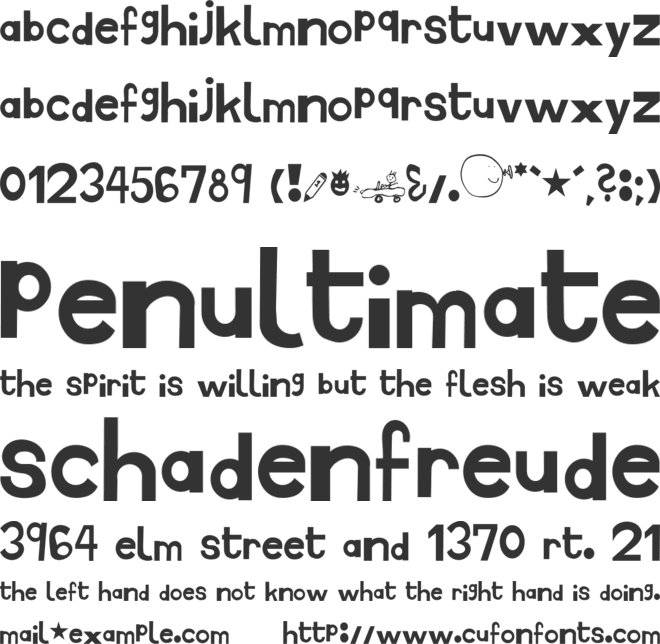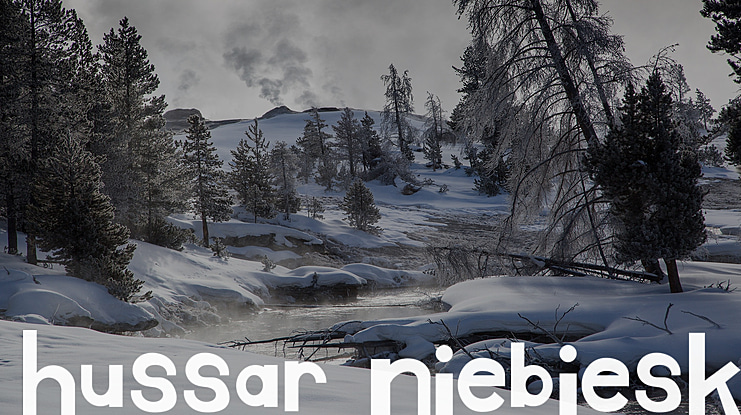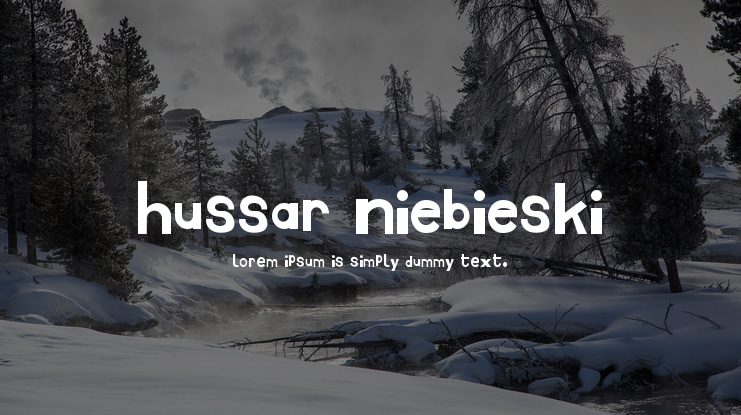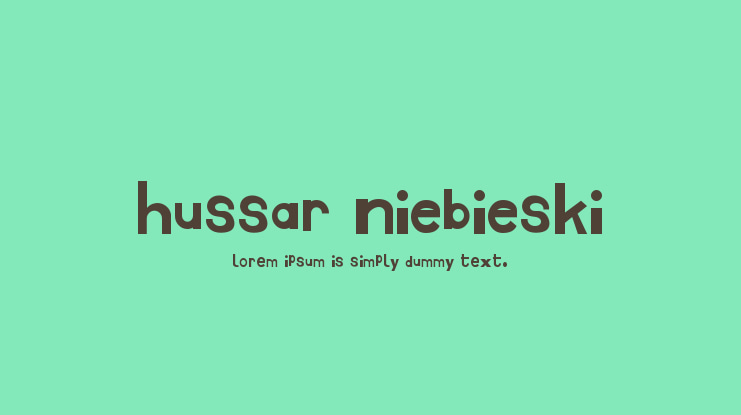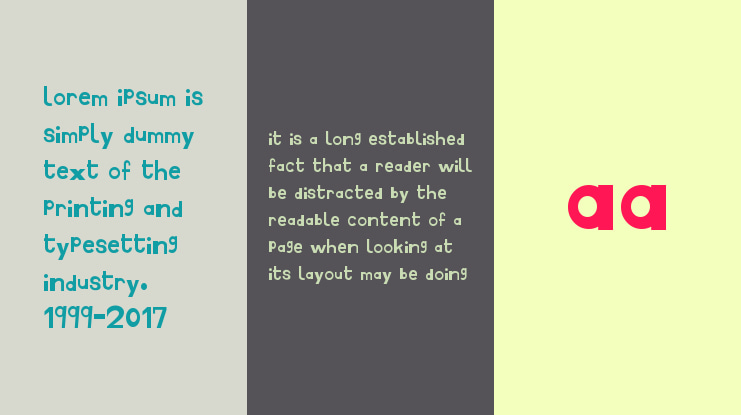
Hussar Niebieski Font
This is a Hussar font made by me.
Hussar Niebieksi (Niebieski is Polish for blue) is a lowercase ugly sans serif font, hence the name.